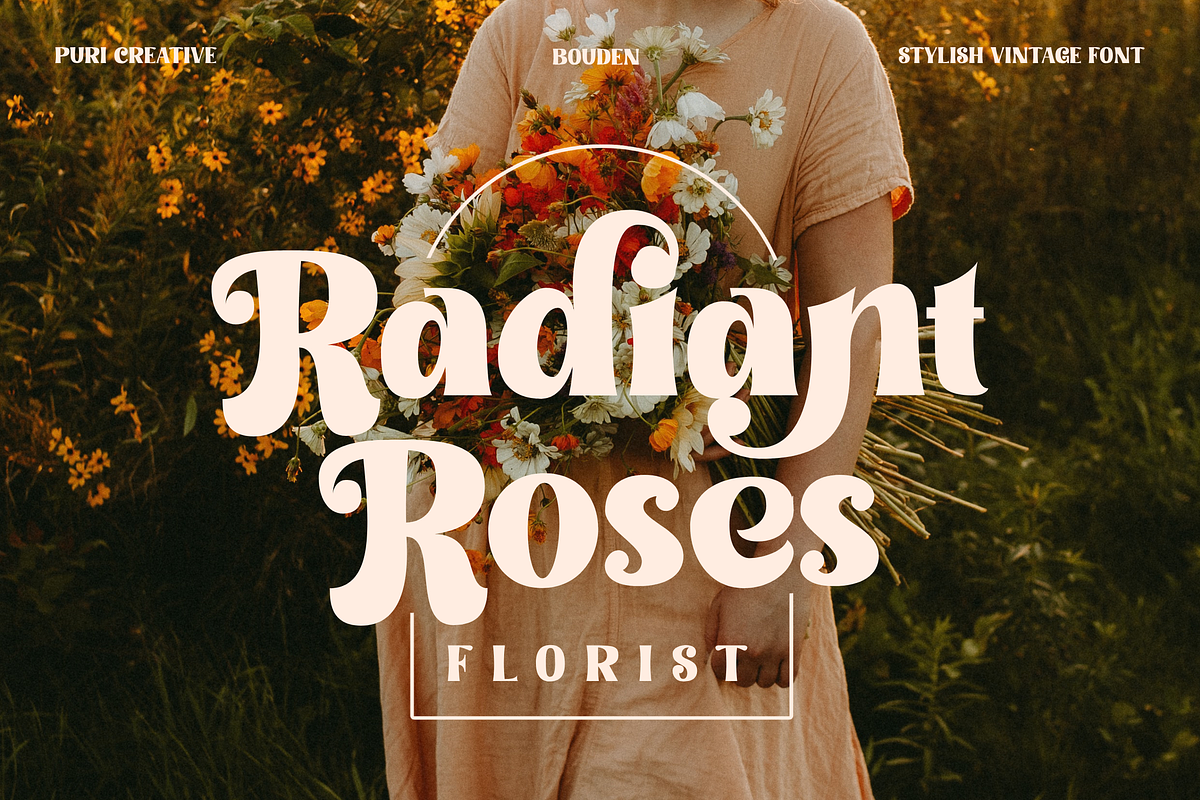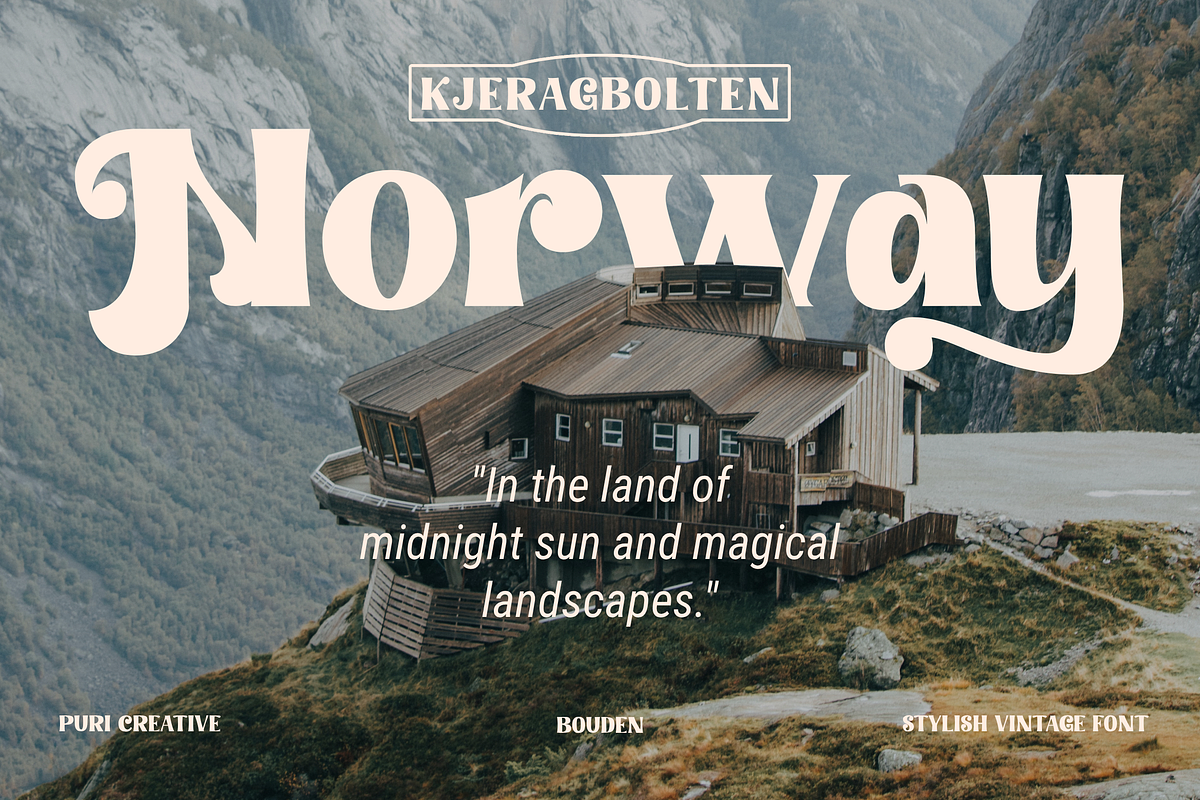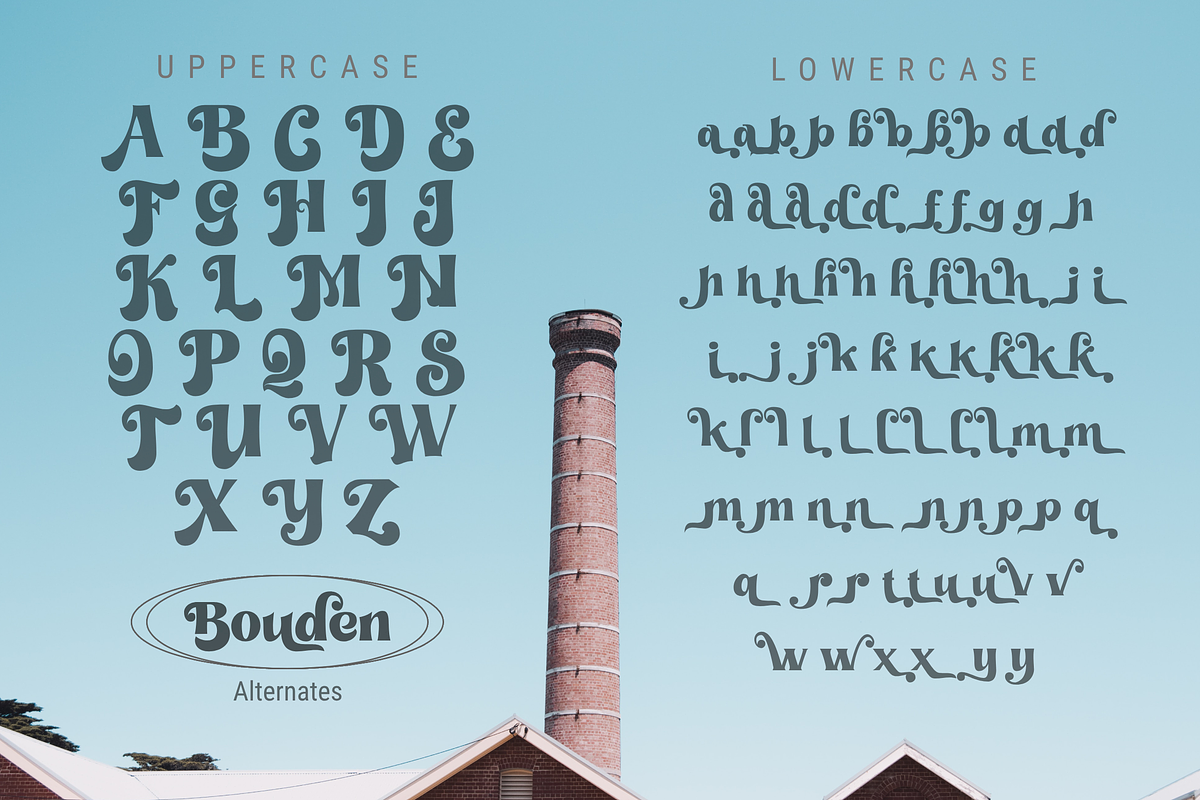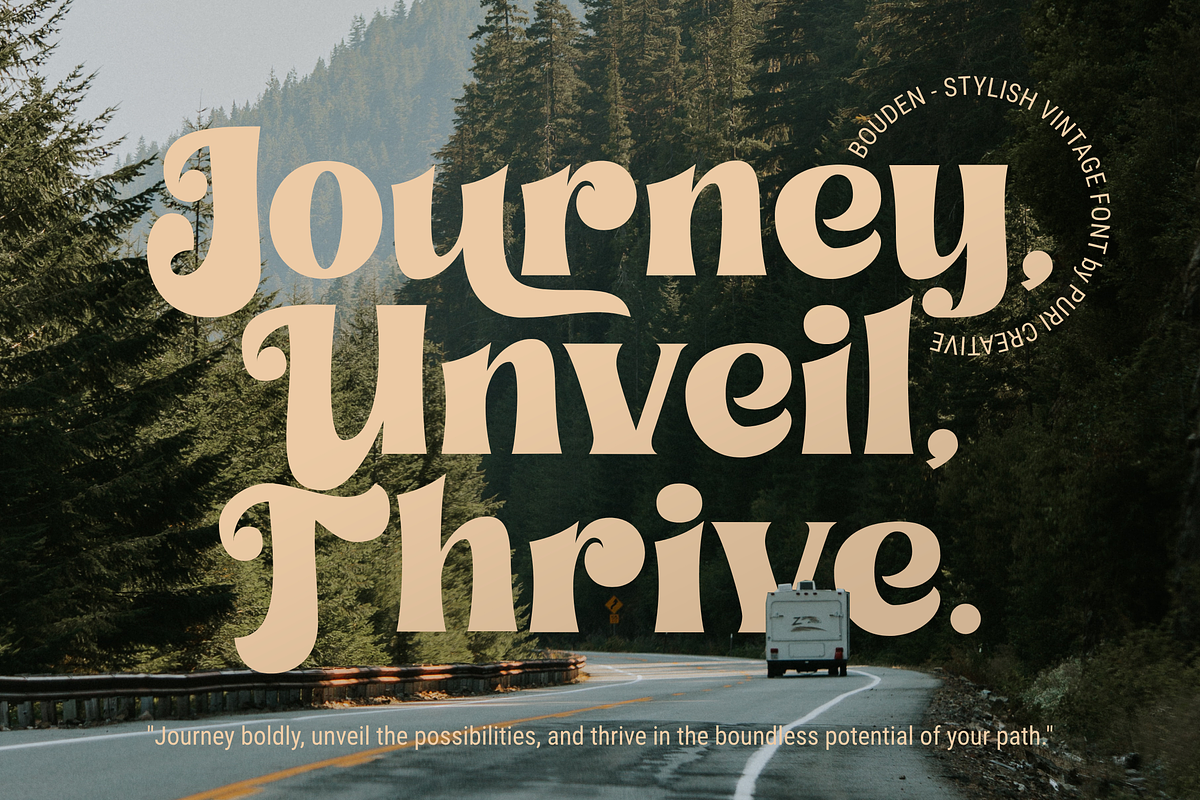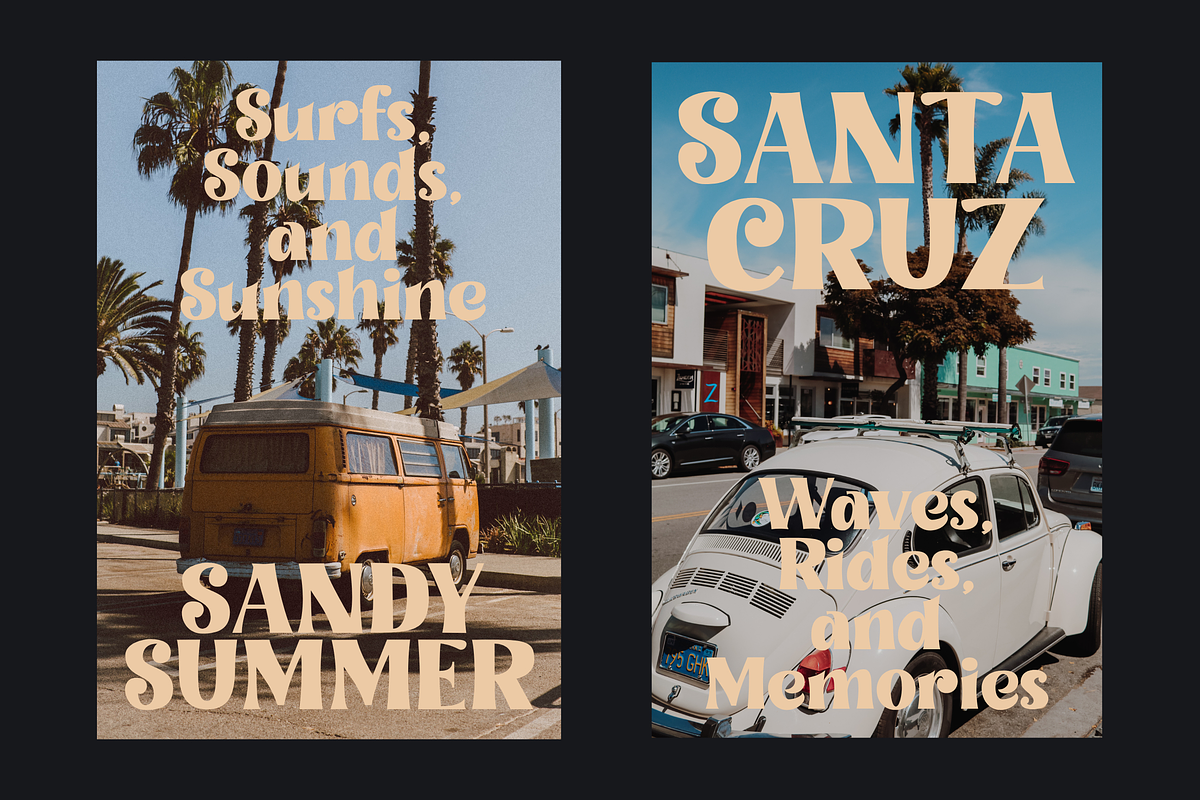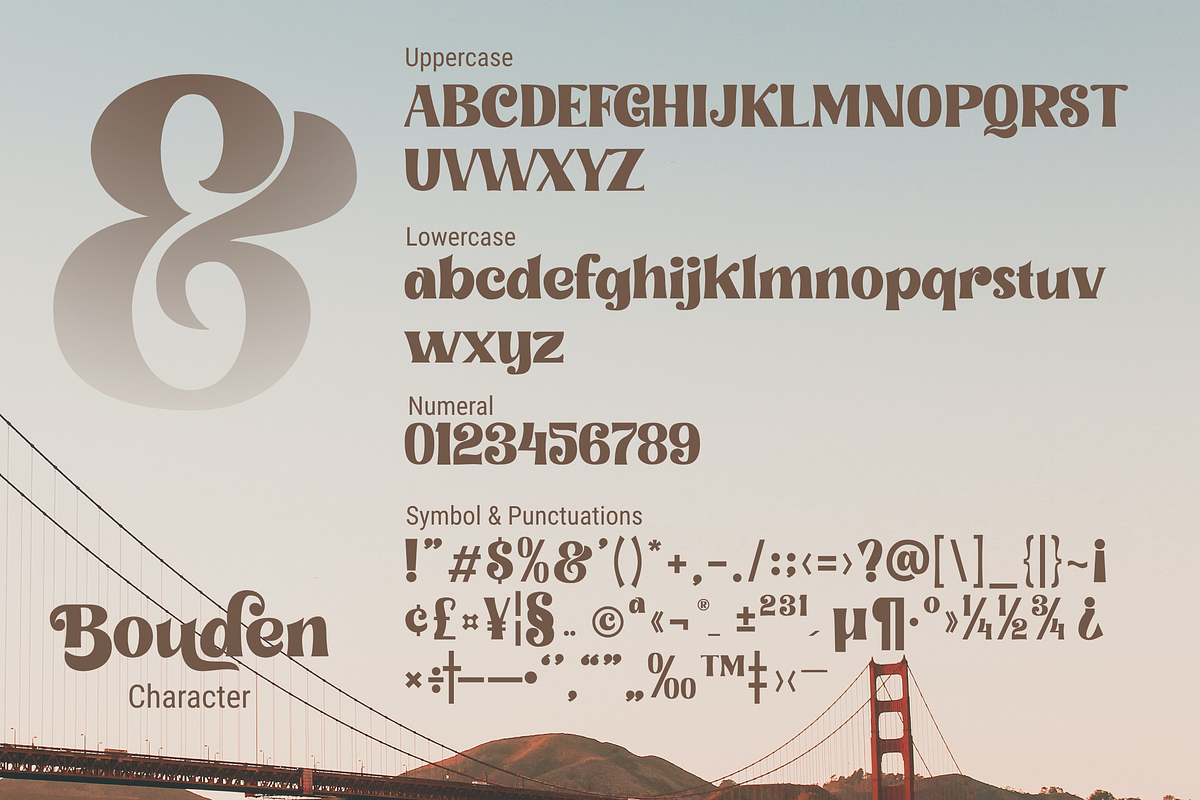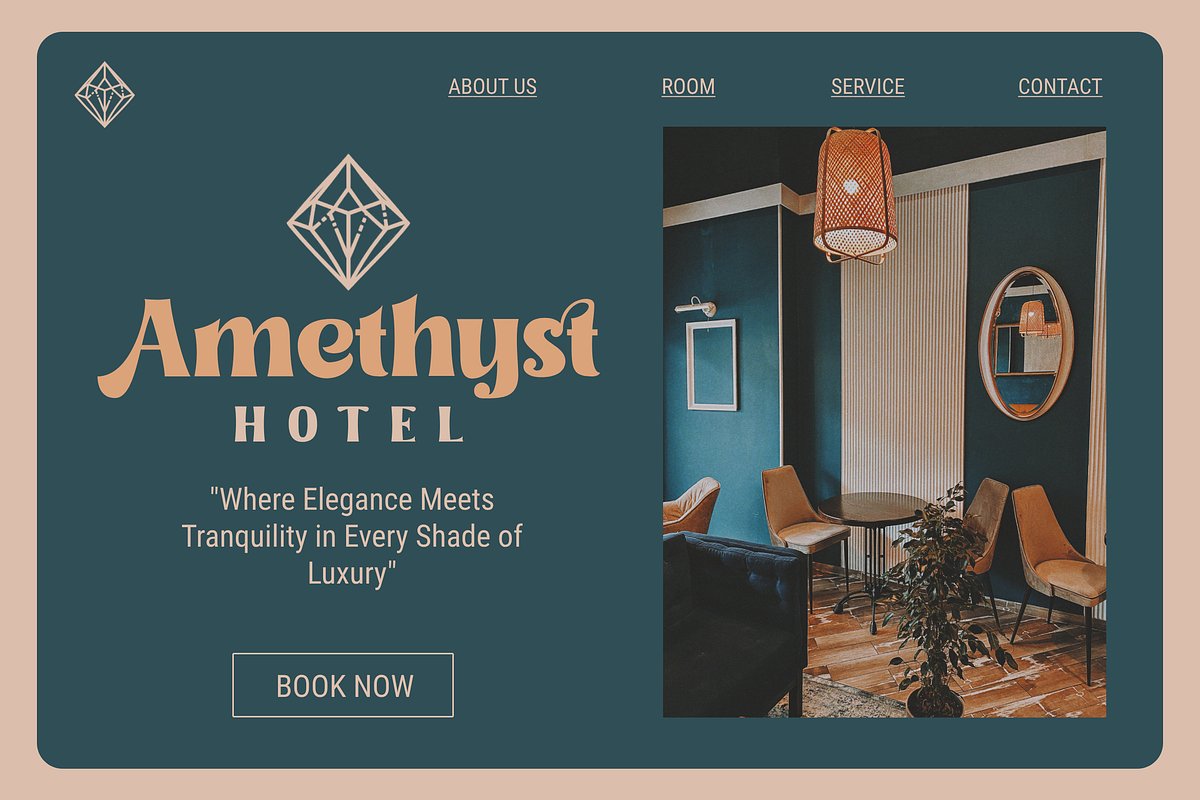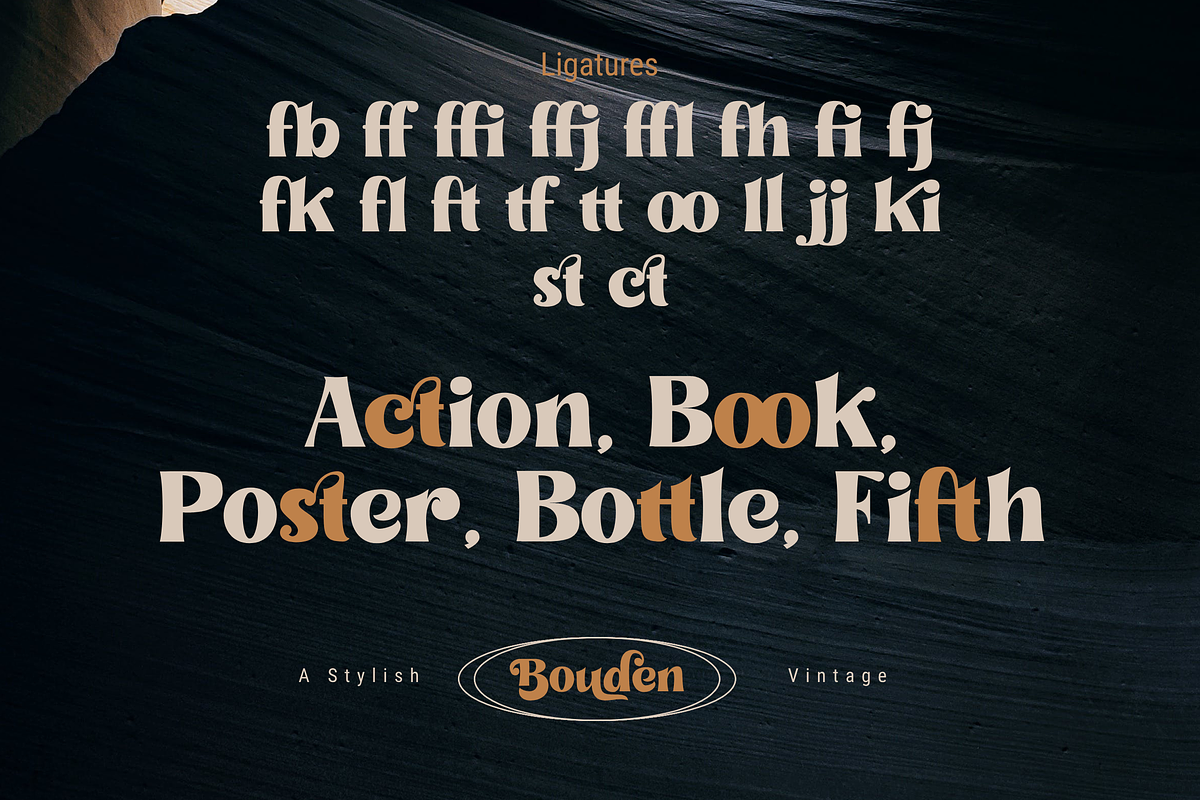
Bouden - Stylish Vintage Font
Dive into the nostalgic coolness of Bouden, a stylish vintage font that channels the groovy vibes of the '70s with a contemporary twist. Perfectly balancing retro aesthetics with a touch of modernity, Bouden shines both in eye-catching display sizes and maintains readability even in text size. Bouden, with its OpenType features, offers a plethora of alternate glyphs and ligatures to enhance your creative exploration.